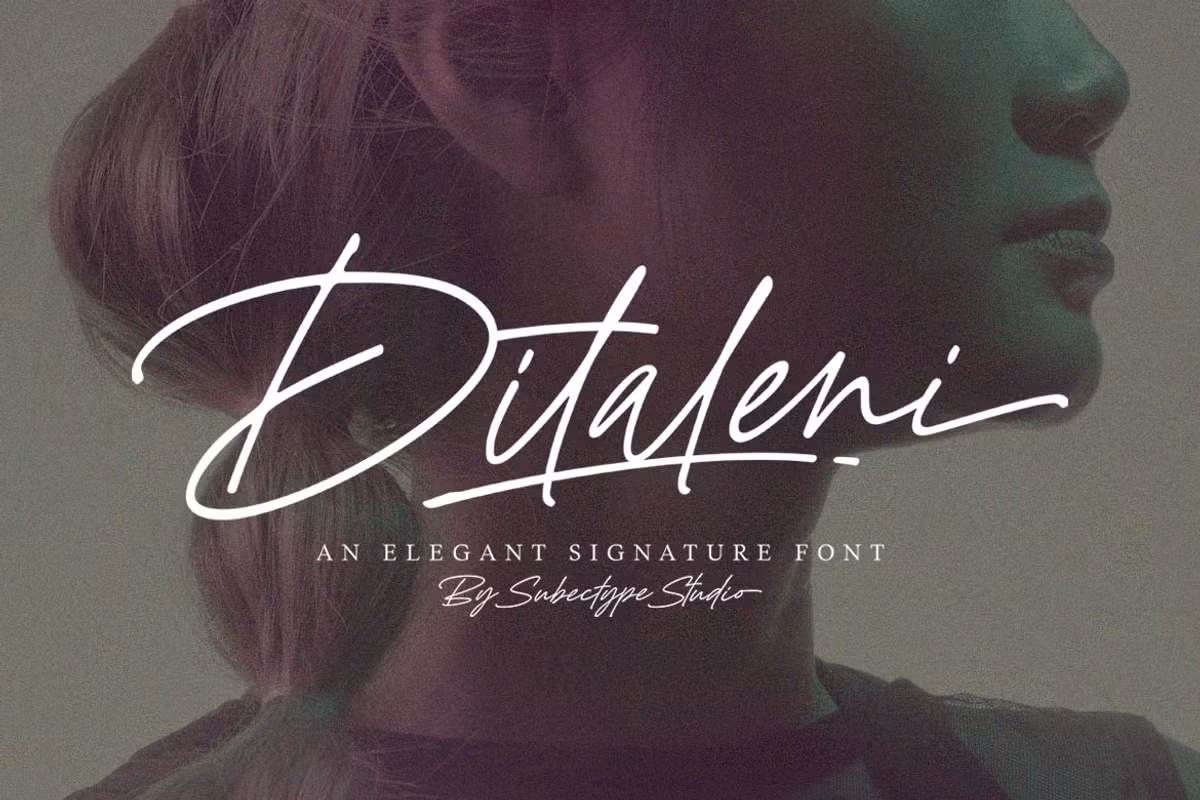
Ditaleni – An Elegant Signature Font Free Download is a graceful handwritten script designed to emulate the look of a stylish personal signature. With its flowing strokes, natural rhythm, and refined details, Ditaleni is perfect for personal branding, luxury logos, fashion labels, wedding invitations, and elegant packaging.
This font adds a professional, high-end touch to any project, making it ideal for creatives who want their work to feel sophisticated and custom. Whether you’re designing for digital or print, Ditaleni offers smooth readability and striking beauty.
Designers love Ditaleni for its balance of fluid handwriting and timeless style. Want to leave a lasting impression with your typography? Download Ditaleni – An Elegant Signature Font Free Download and give your designs the elegance of a handwritten signature.